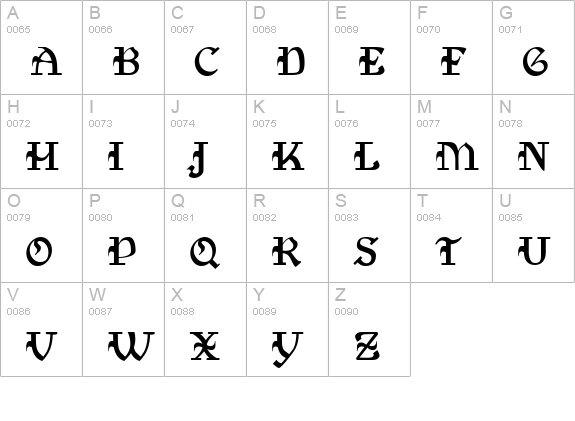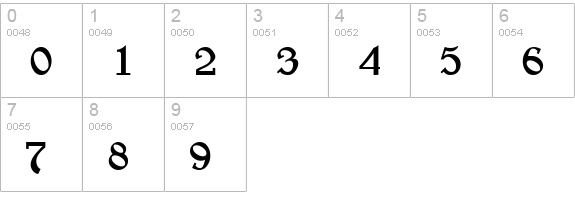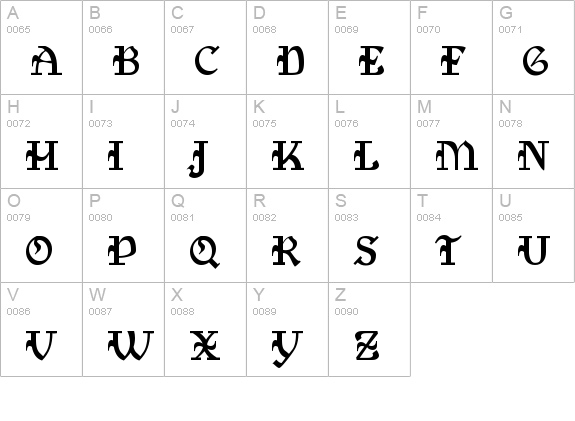
MedievalGunslinger Font Details
MedievalGunslinger font is a captivating and rustic typeface that combines the charm of medieval calligraphy with the boldness of a gunslinger's spirit. Its intricate strokes and vintage aesthetic evoke a sense of adventure and mystery, perfect for projects that require a touch of historical flair. This unique font is not just visually striking, but also versatile and easy to read, making it suitable for a wide range of design projects. Whether you're creating posters, invitations, branding materials, or anything in between, MedievalGunslinger font will add a touch of old-world charm to your work. And the best part? MedievalGunslinger font is available for free download at FontsMarket.com. So go ahead and unleash your creativity with this stunning typeface that will transport your audience to a bygone era of knights, outlaws, and daring escapades.